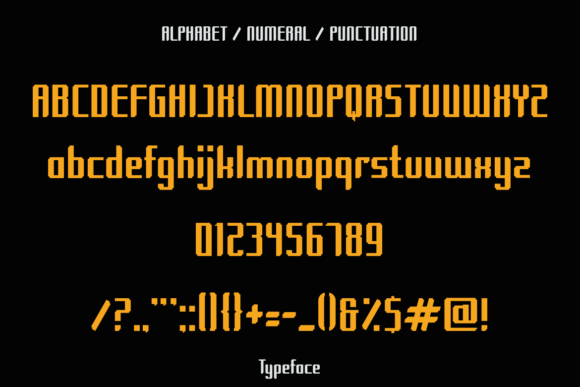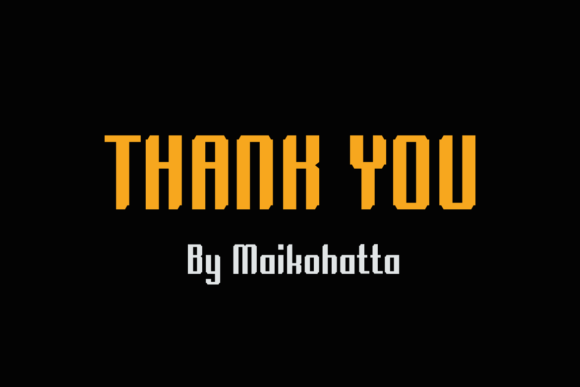
Introducing Betrends Font: The Modern Display Font for Bold Designs
In the world of design, fonts play a crucial role in conveying the message and aesthetic of a brand. A well-chosen font can elevate a design from ordinary to extraordinary. Today, we’re excited to introduce Betrends Font, a modern display font that’s bold, authentic, and versatile. Whether you’re working on a logo, template design, esport, or any other branding project, Betrends Font is the perfect choice.
What is Betrends Font?
Betrends Font is a carefully crafted display font that’s designed to make a statement. Its bold and authentic style makes it stand out in a wide range of contexts, from digital designs to print materials. The font is suitable for any project that requires a modern and edgy look, including:
Key Features of Betrends Font
So, what makes Betrends Font special? Here are some of its key features:
- Bold and authentic style: Betrends Font has a unique and eye-catching design that’s perfect for making a statement.
- Versatile: The font is suitable for a wide range of contexts and can be used in various design projects.
- Uppercase and lowercase letters: The font includes both uppercase and lowercase letters, giving you flexibility in your designs.
Why Choose Betrends Font?
With so many fonts available, why should you choose Betrends Font? Here are some compelling reasons:
- Unique design: Betrends Font has a distinctive style that will set your designs apart from the rest.